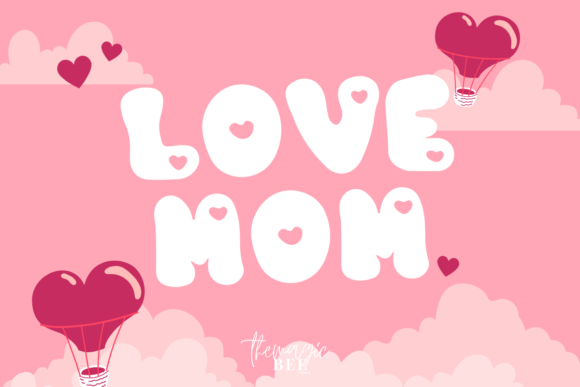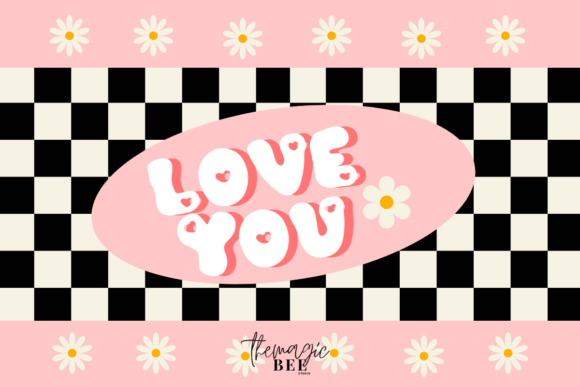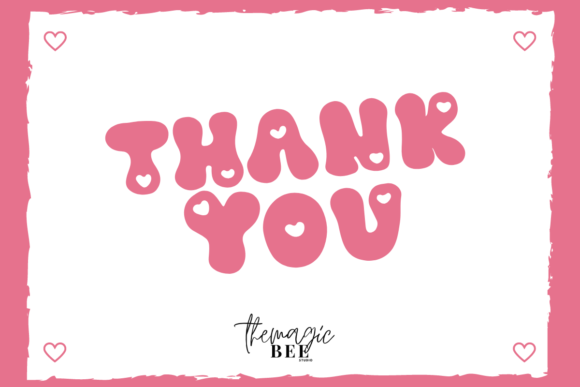
Cute Heart Font
Cute Heart is a decorative font that is cute and fun. It is perfect for Valentine’s or Mother’s Day designs. Add this beautiful font to each of your creative ideas, and notice how it makes them stand out!